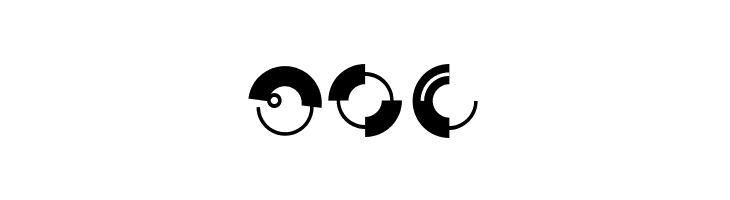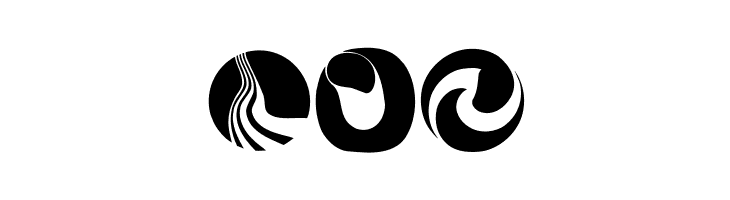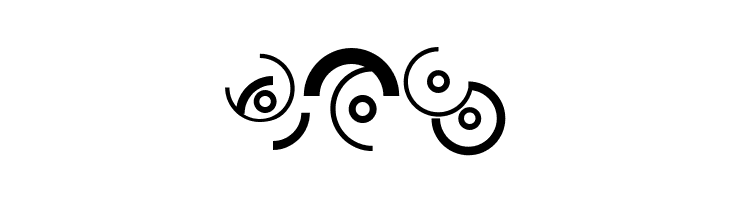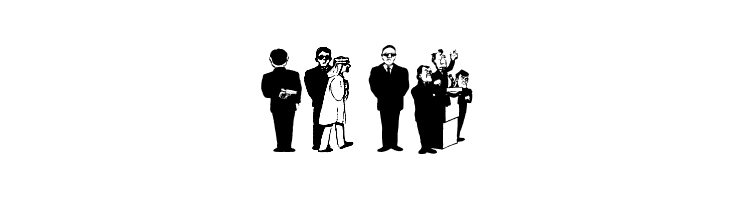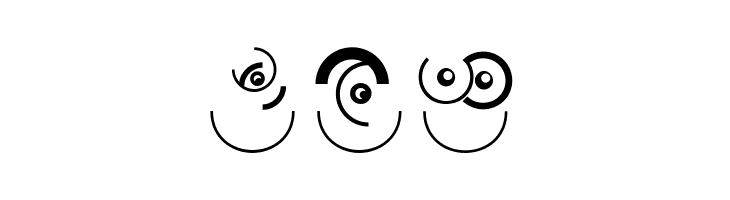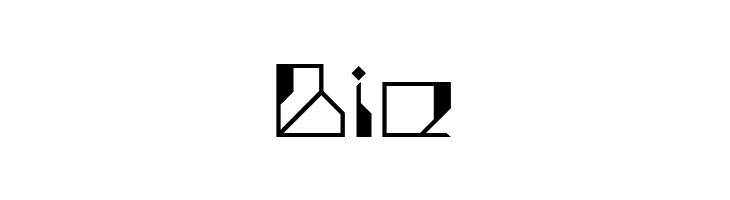
• CIAThePeaceWatchers
Cartoon-style pictorial font depicting secret agent and surveillance themes.
• Cilica
A geometric, angular font with a futuristic and technical design.
• Cilica Multispore
A futuristic, geometric font with sharp angles and bold lines.
• Cilica Spore
A futuristic, geometric font with sharp angles and a bold, structured appearance.
• Cilica Virus
A futuristic, angular font with a bold and geometric design.
• CircledHeads
A decorative font with abstract, face-like characters formed by bold circular elements.
• CircleFaces
A playful, decorative typeface with characters designed as expressive circular faces.
• CircleMixes
An abstract, decorative font with swirling, circular motifs and bold strokes.
• Circularium
A collection of abstract, circular symbols with bold, modern designs.
• ClassicoAntiqua
Illustrative dingbat font with classical antiquity themes.